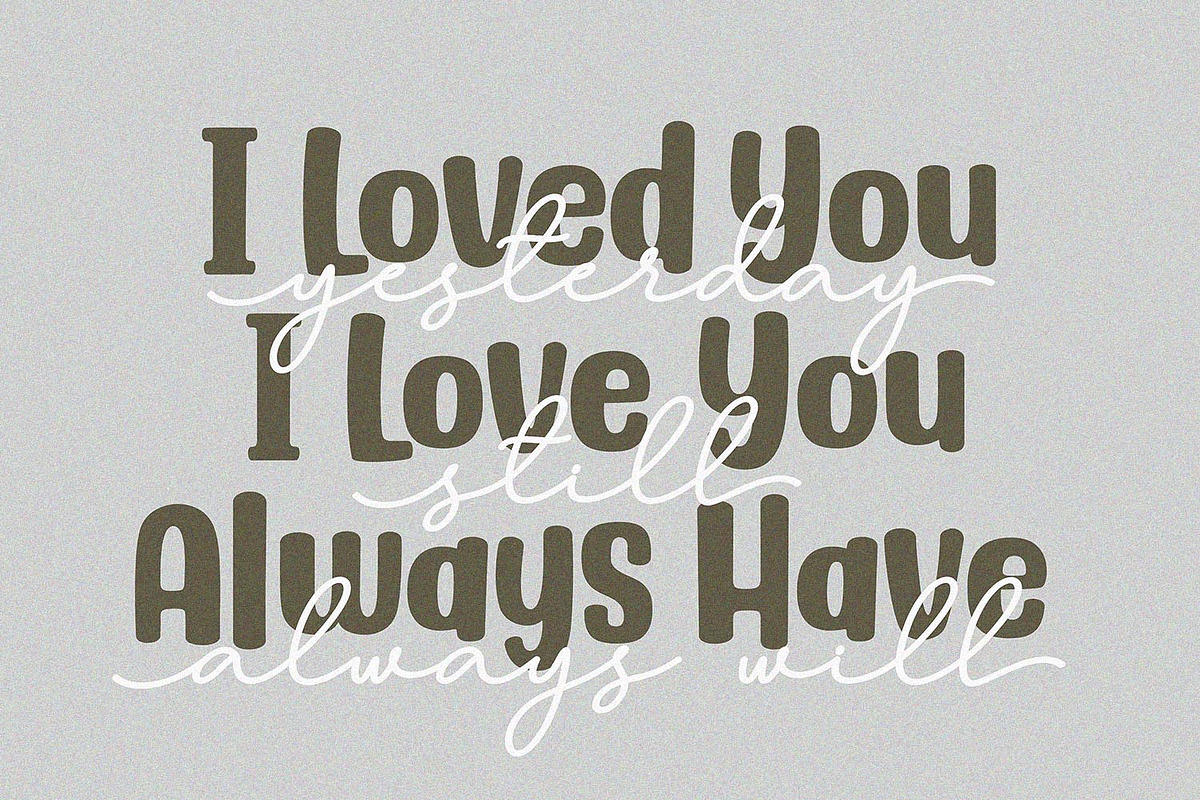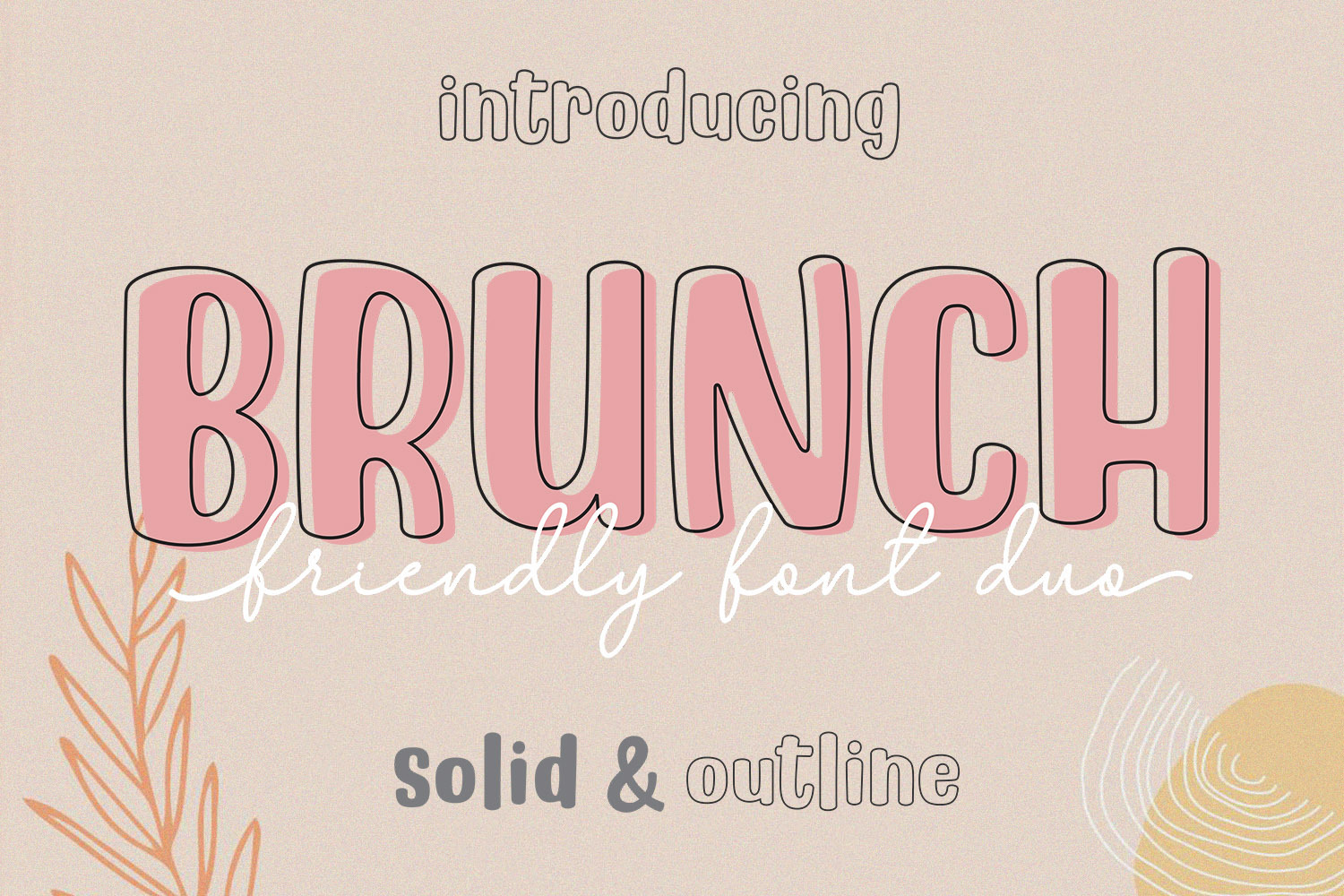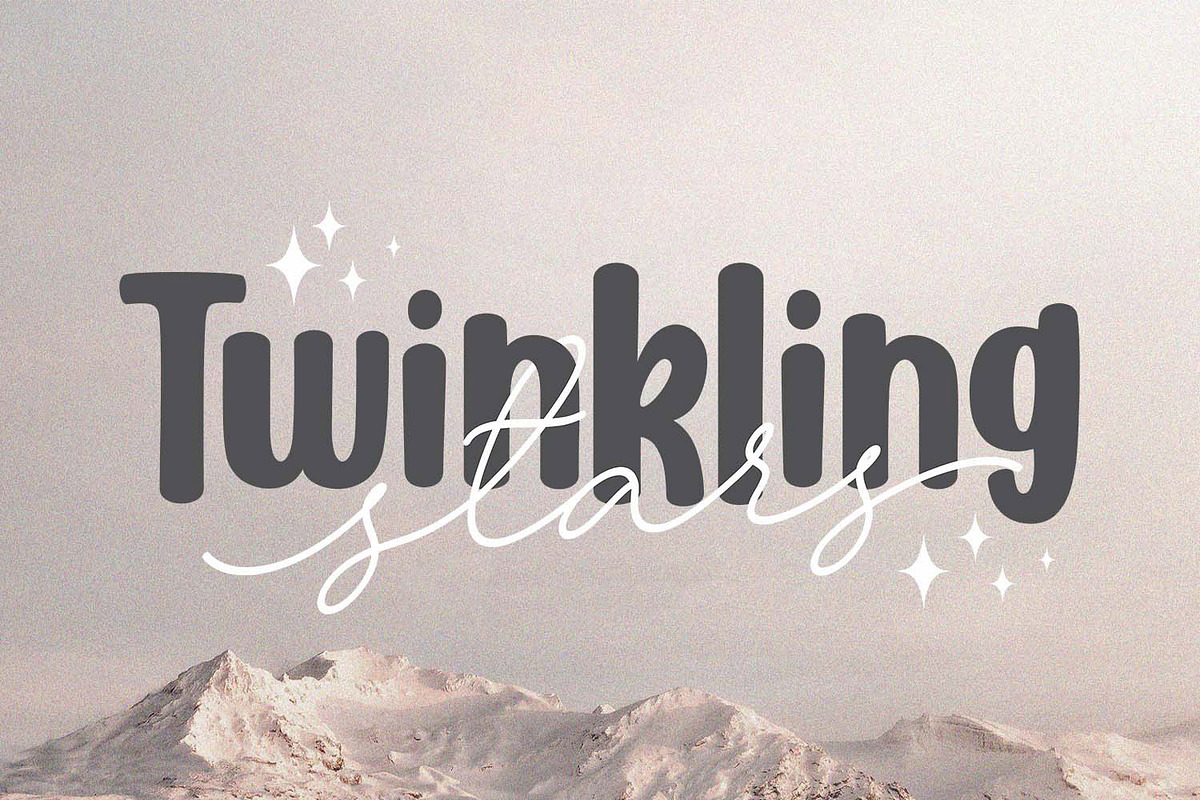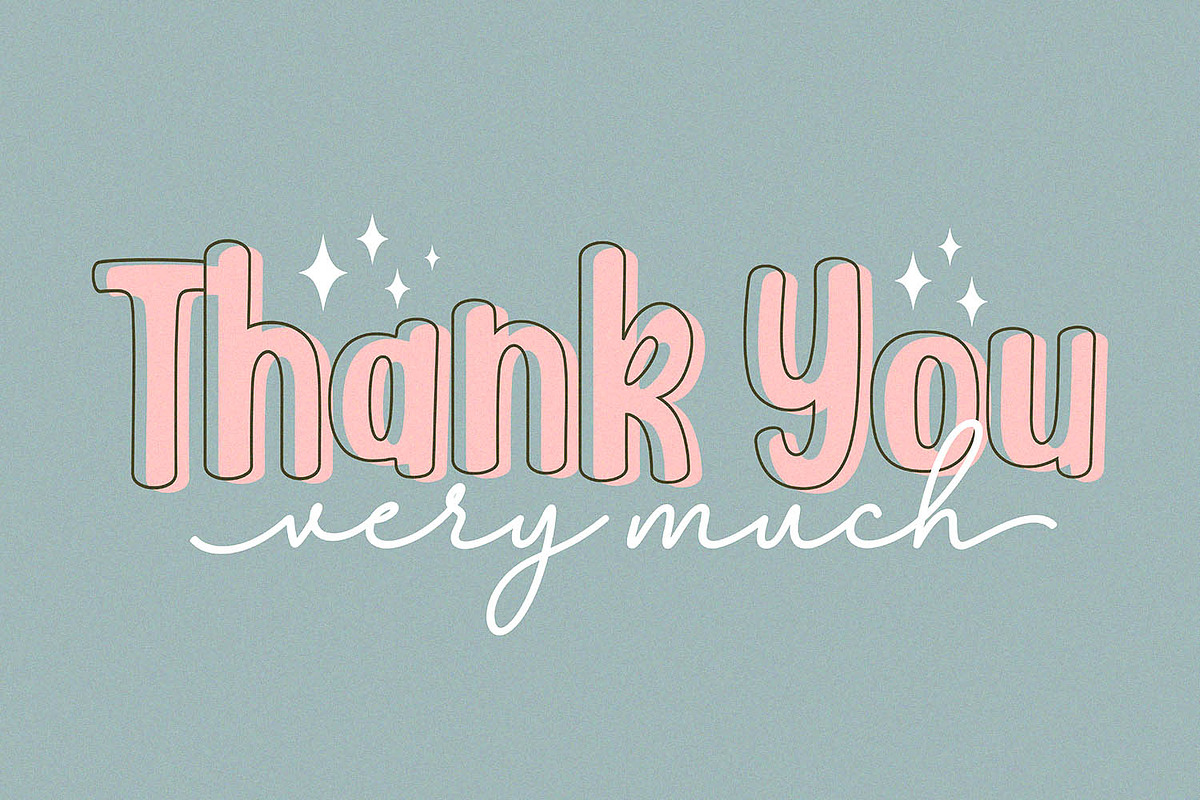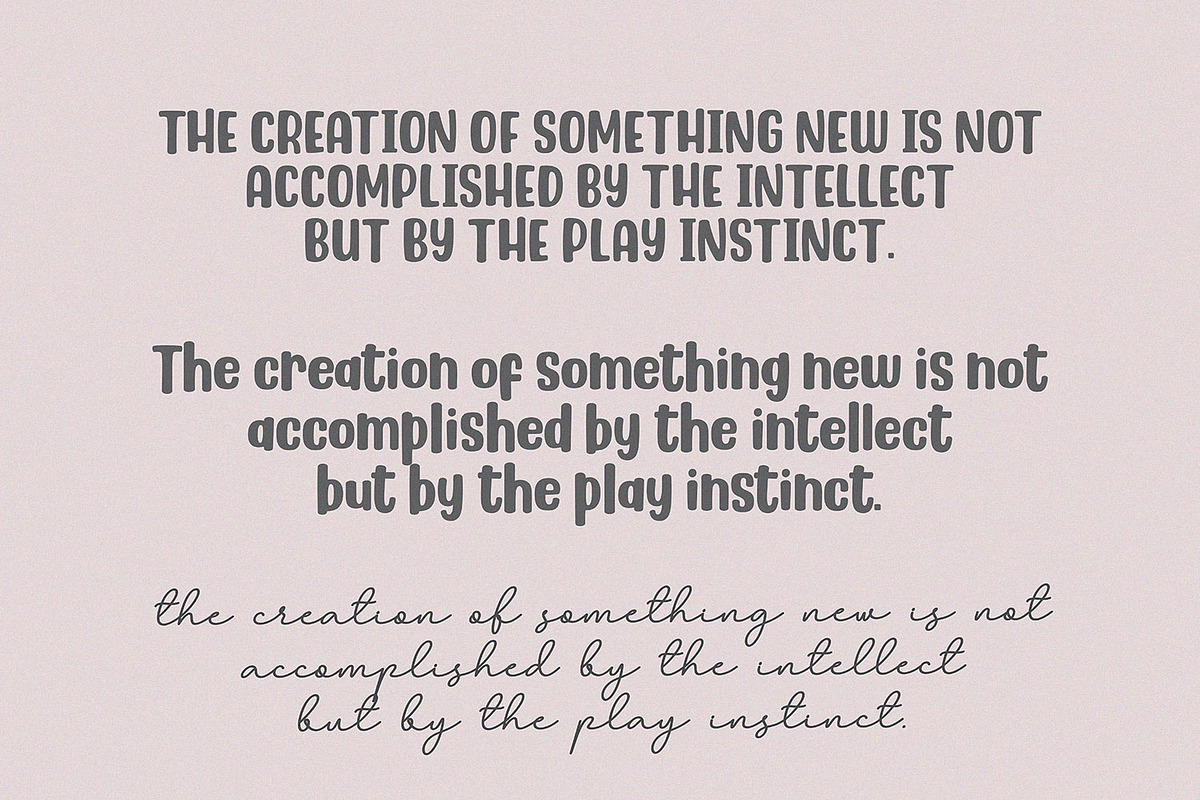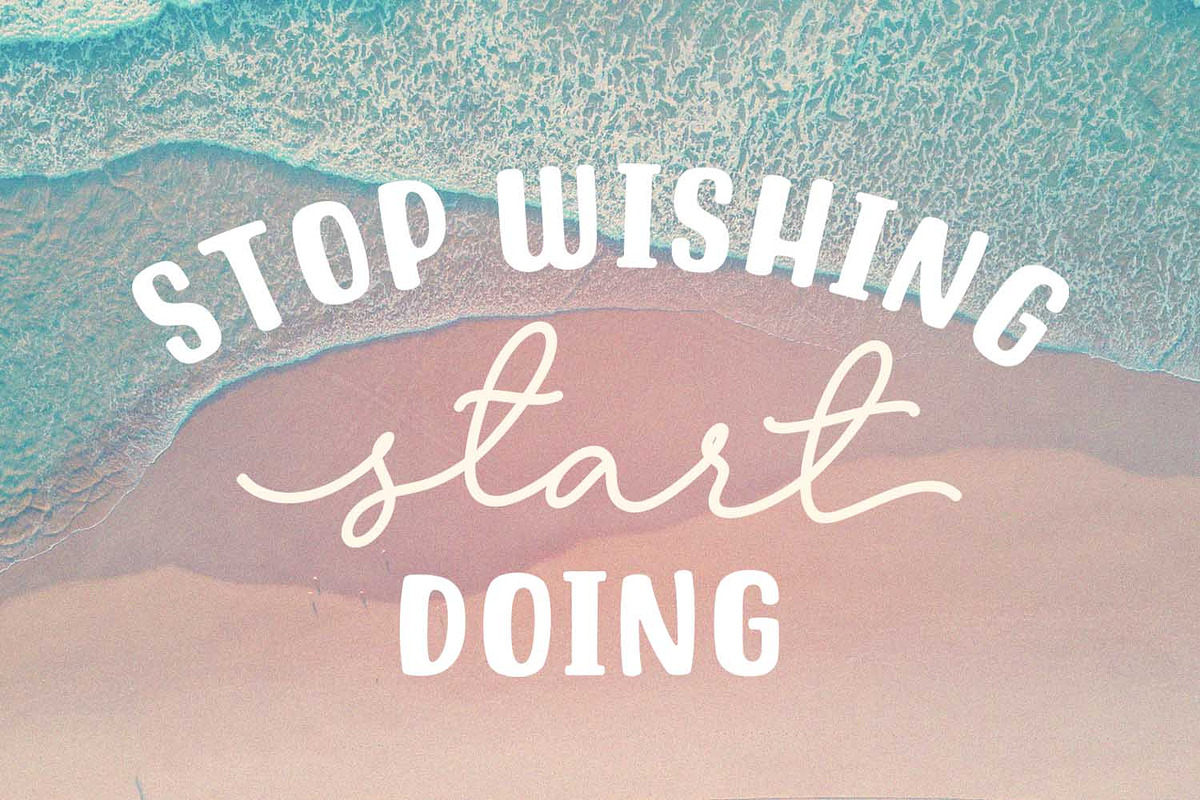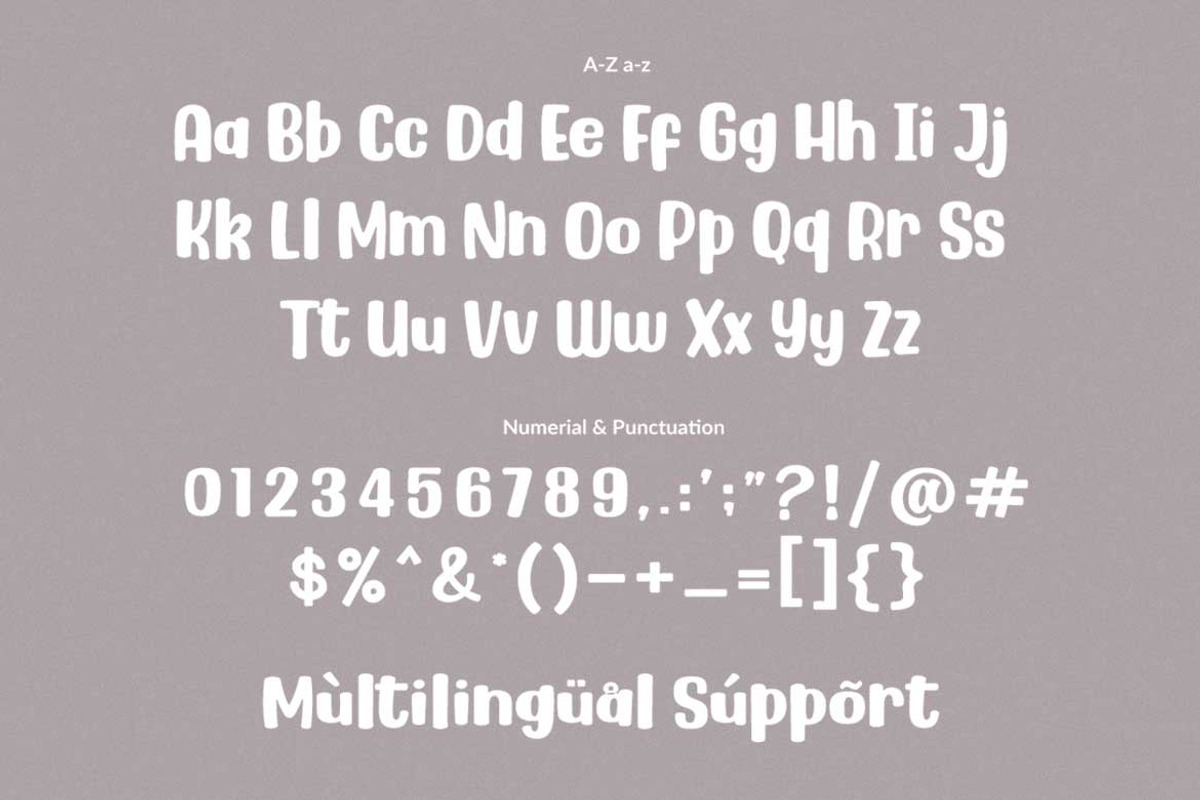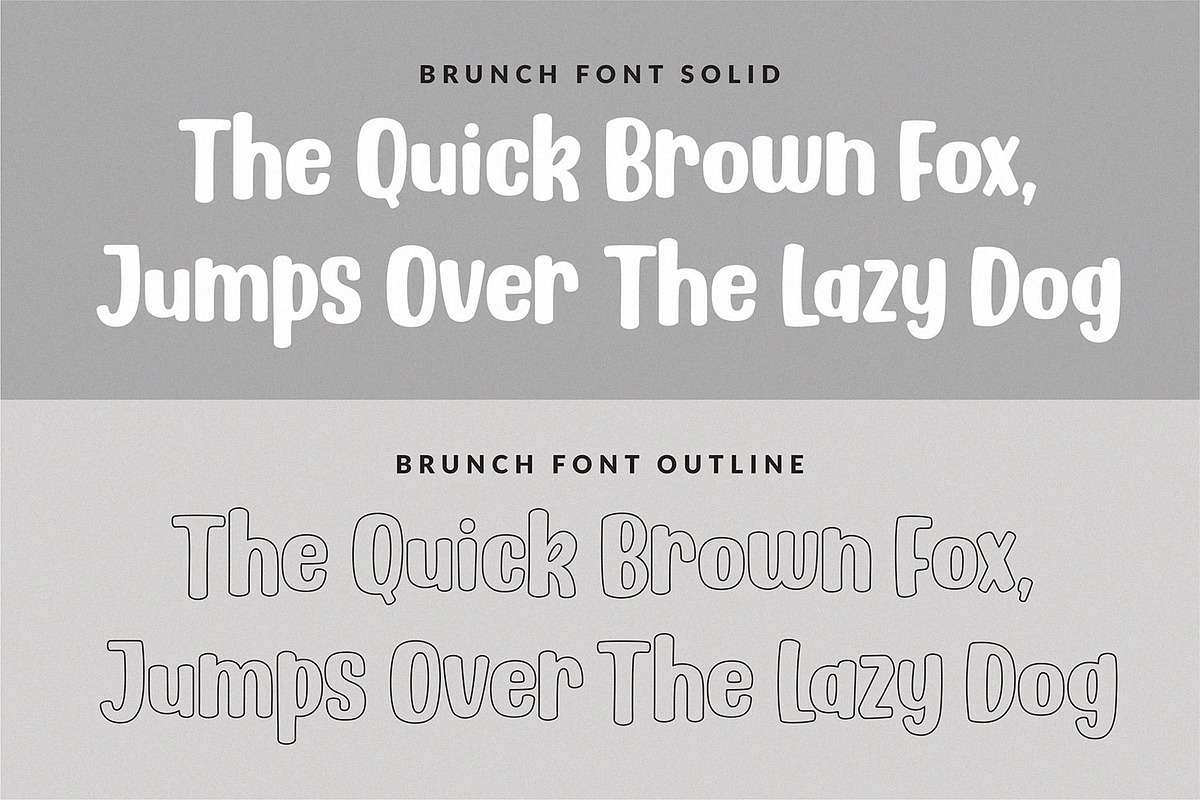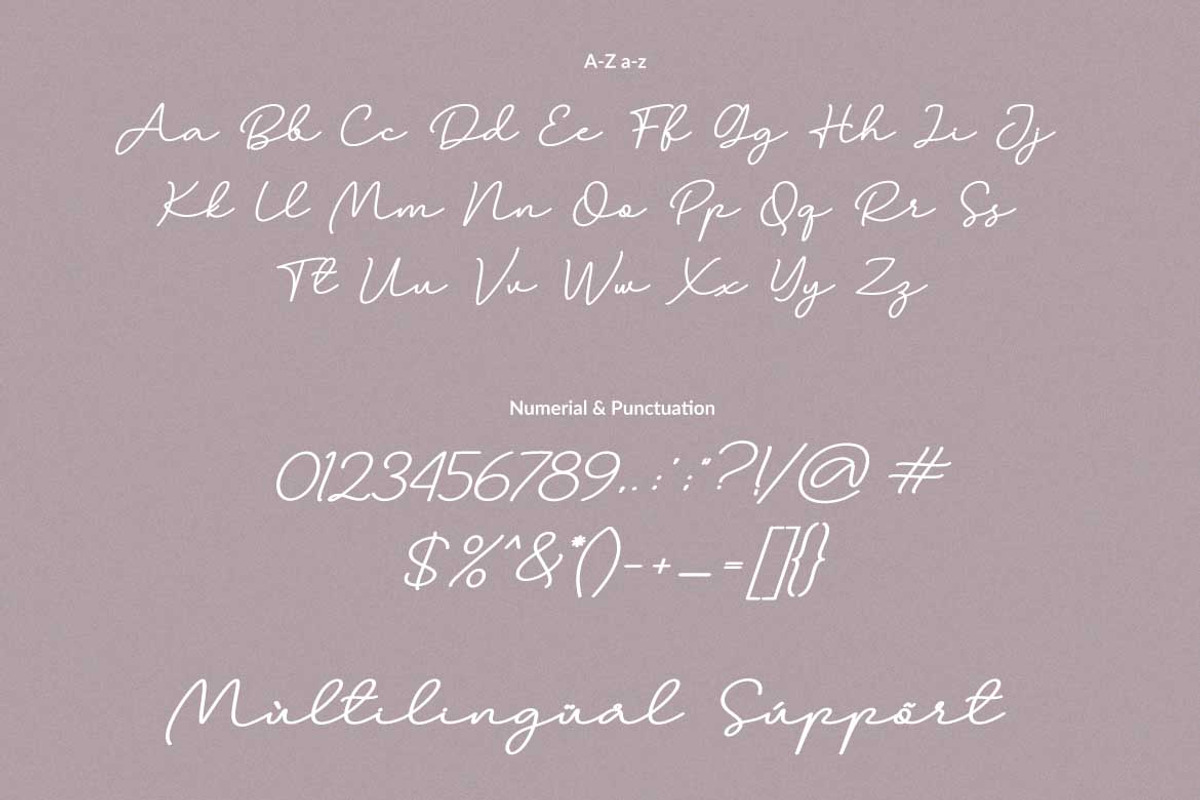
BRUNCH - Cute Font Duo
Brunch is a duo-styled Display font and monoline script font, that feels equally charming and delicate. This font is PUA encoded which means you can access all of the glyphs and swashes with ease! This font perfect for Crafting, DIY, Silhouette, Cricut, apparel, Fashion and many more.
- Brunch Outline
- Alternate Letter for script